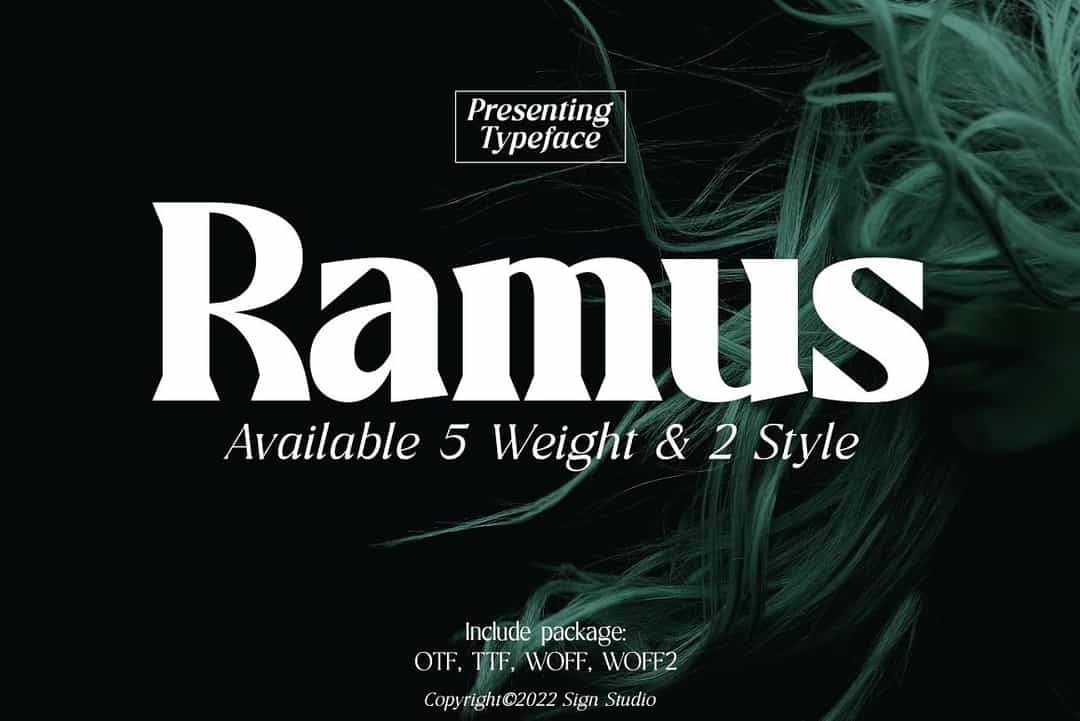
Ramus can be best described as a type system that offers you a broad selection of design choices. It comes in five weights with regular and italic versions for regular and italic styles respectively, and was inspired by minimalist aesthetic and classic typography studies.